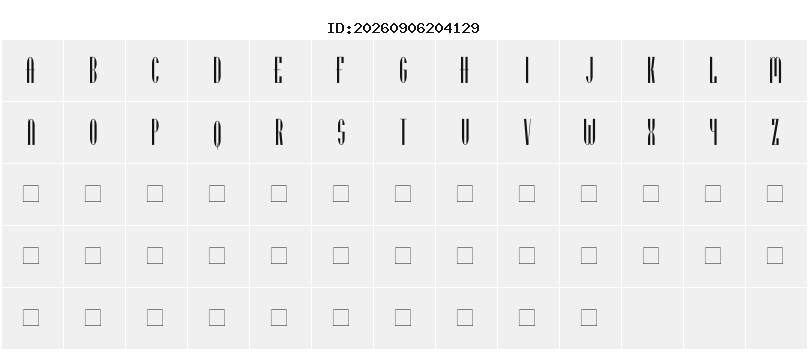
• Font Name: Utusi Star
• Font Style: normal
• Full Font Name: Utusi Star Normal
About Utusi Star.ttf
Utusi Star.ttf is a modern, elegant sans-serif font designed for ultimate readability and visual harmony. Perfect for branding, headlines, web design, and print materials.